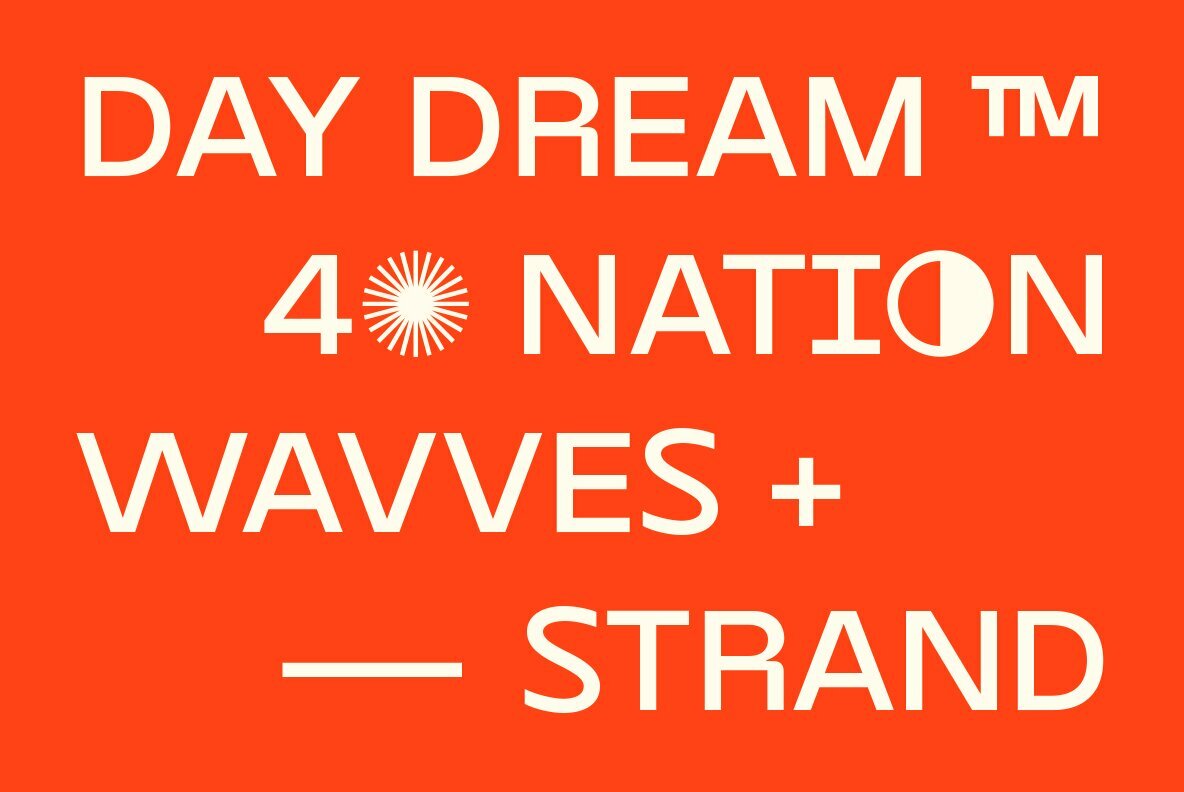
TG Praktikal Font
TG Praktikal is new modern geometrics sans with 8 styles & 1 variable font. Inspired by geometrics and gothic typefaces like Bell Centinel, Whitney, and Metric with a touch additional of monospace characters. That makes TG Praktikal have a unique character set and fit perfectly for body text.
Coupled with 3 flavors that can provide different impressions, including approximately 90 multilingual, with various features OpenType.